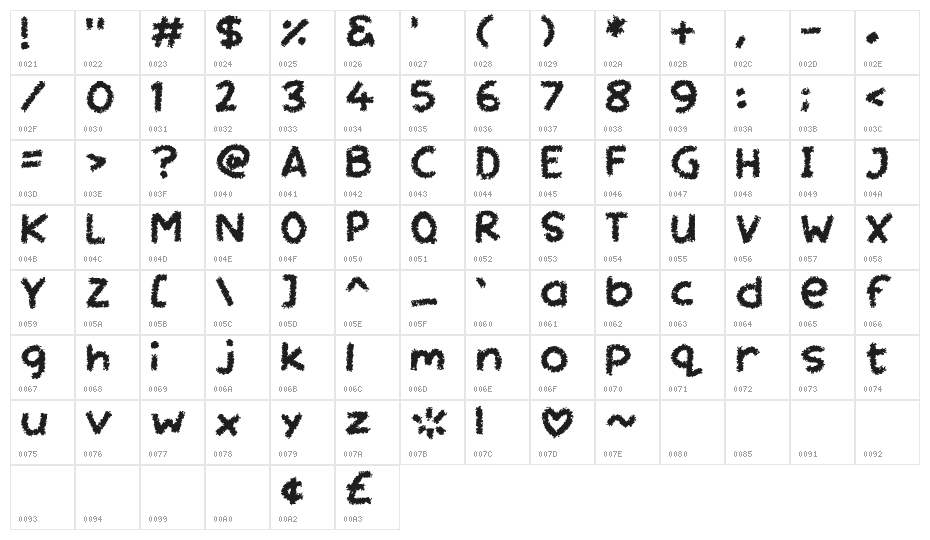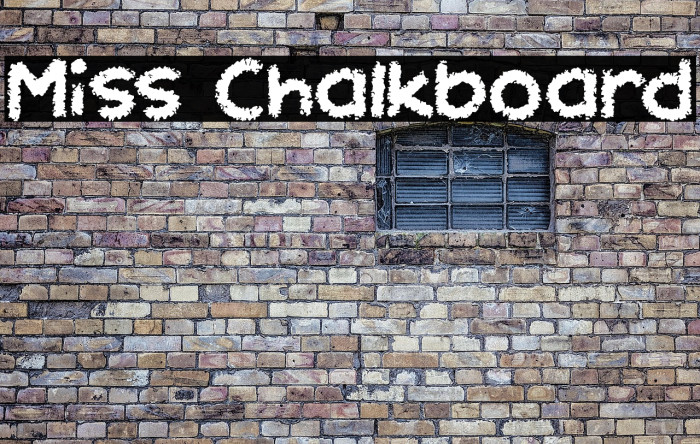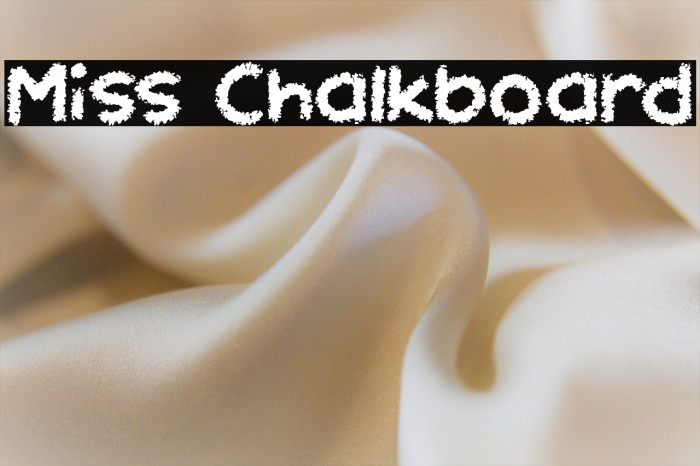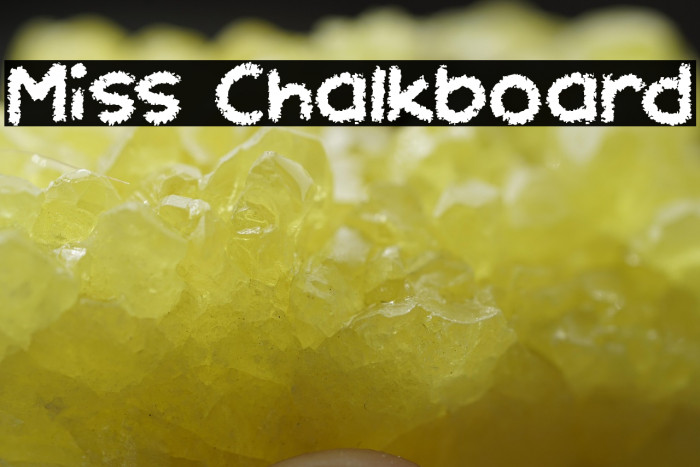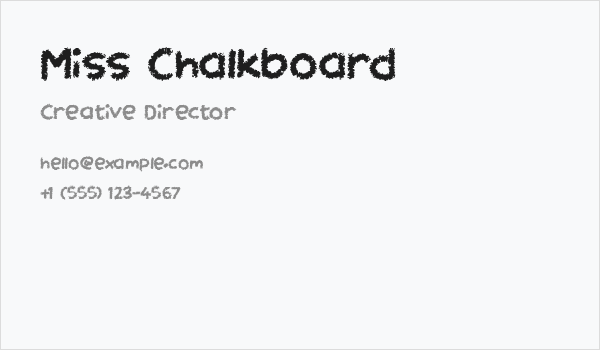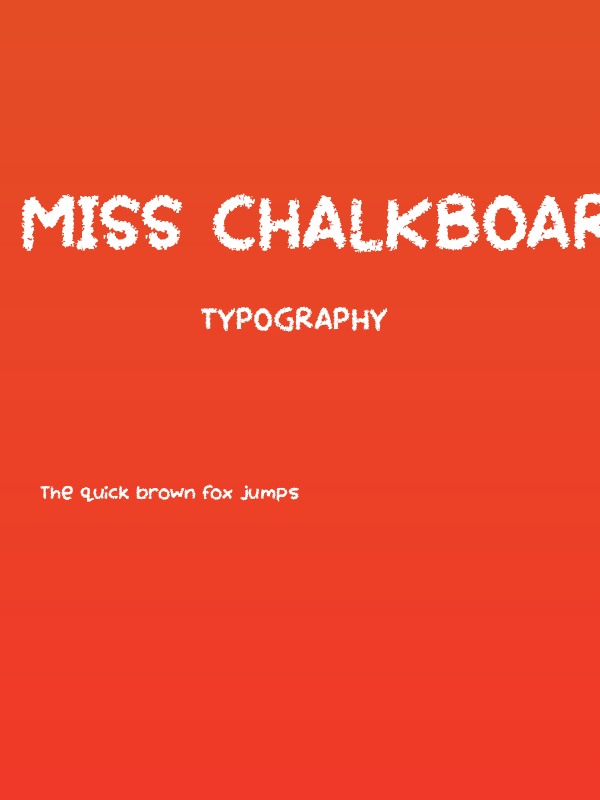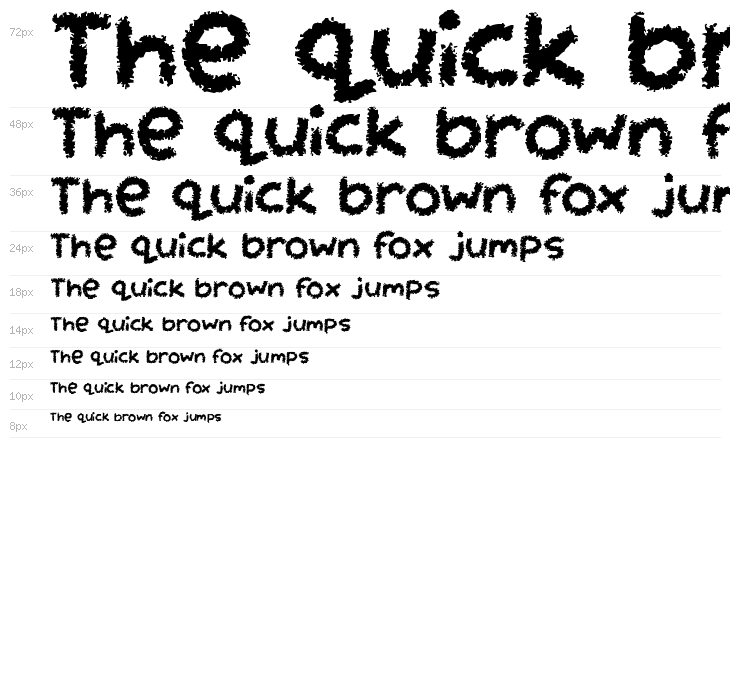
Miss Chalkboard Font
Miss Chalkboard Description
This font features a playful and textured design, reminiscent of chalk writing on a blackboard. The characters have a rough, uneven edge that gives them a hand-drawn appearance, adding a sense of whimsy and creativity. The uppercase and lowercase letters maintain a consistent style, with rounded forms and a slightly bold weight. Numbers and special characters are equally stylized, ensuring a cohesive look across all glyphs. The font's unique texture makes it ideal for projects that require a casual, informal, or educational theme, capturing attention with its distinctive and artistic flair.
| Overall Style | Playful, Artistic |
| Proposed Projects | Ideal for educational materials, children's books, playful branding, and creative posters. |